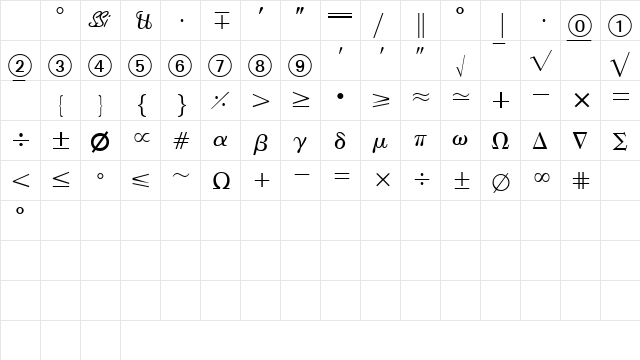
AbacusFourSSK Regular
Design Context for AbacusFourSSK
AbacusFourSSK is a composed and adaptable typeface that performs quietly and consistently across a wide range of design contexts.
Pro Tip: Use AbacusFourSSK in both headline and body roles to test its range before committing to a single application.